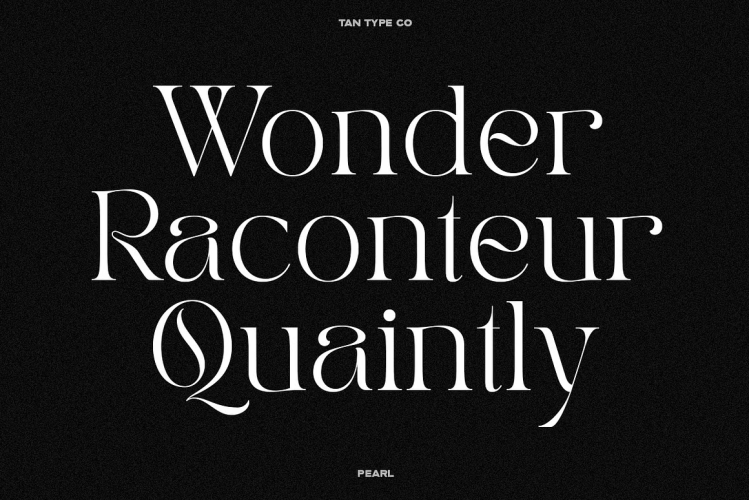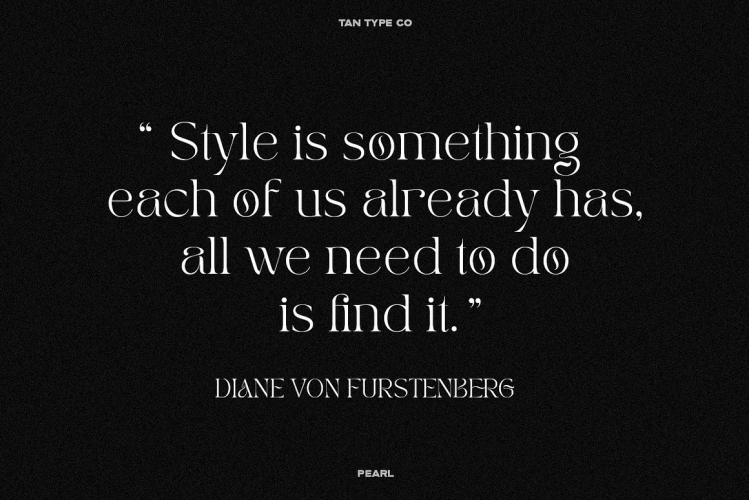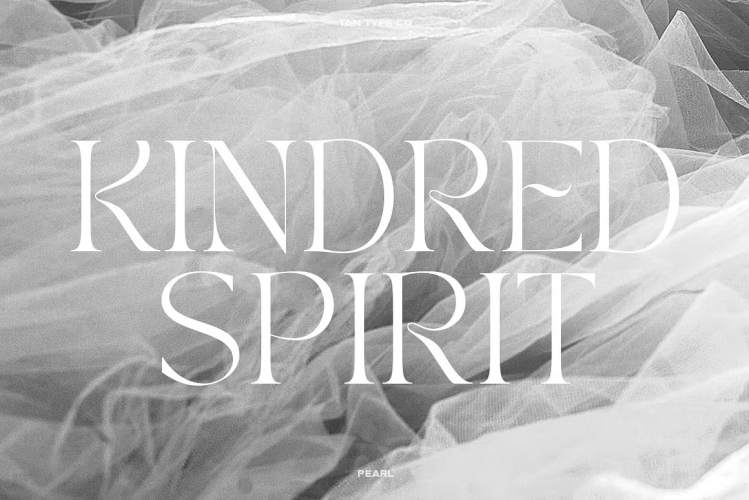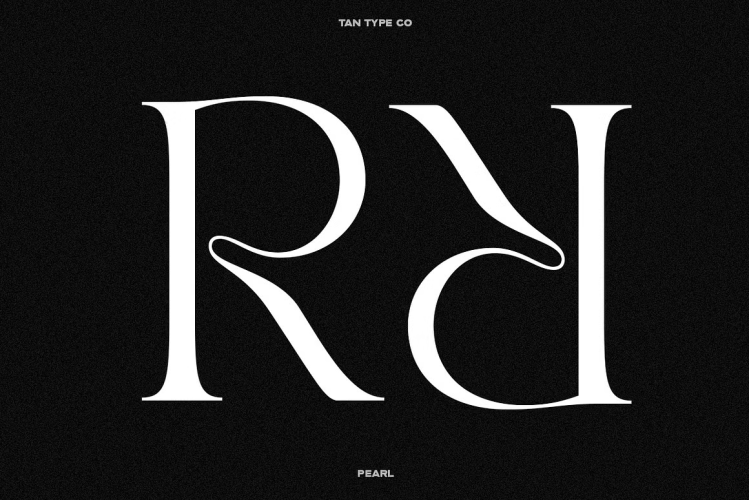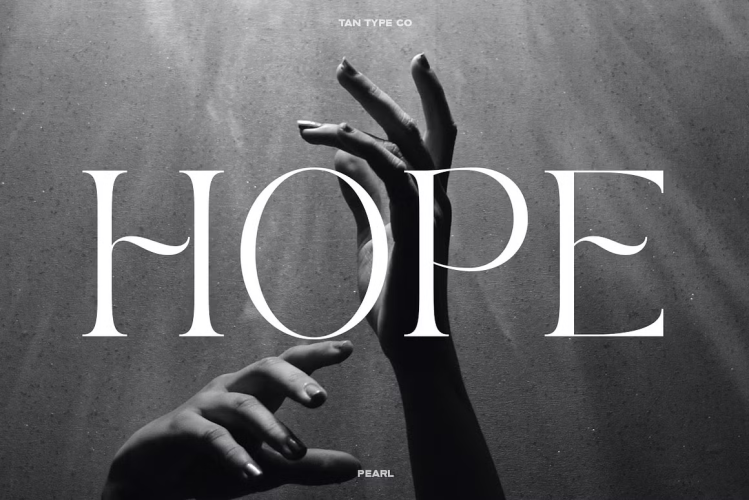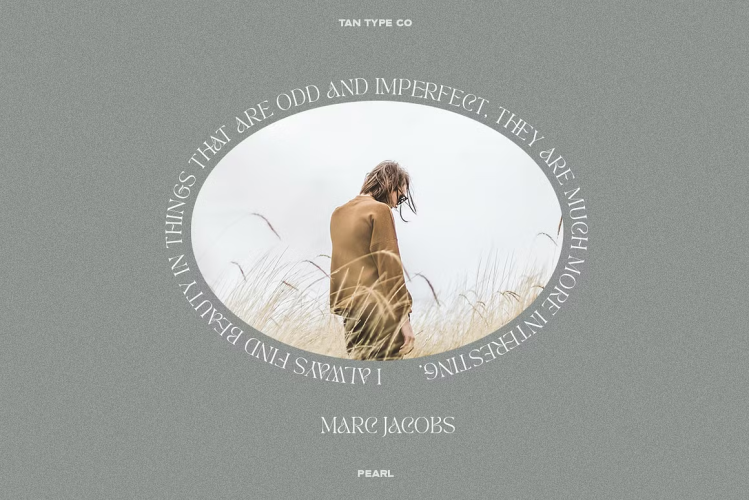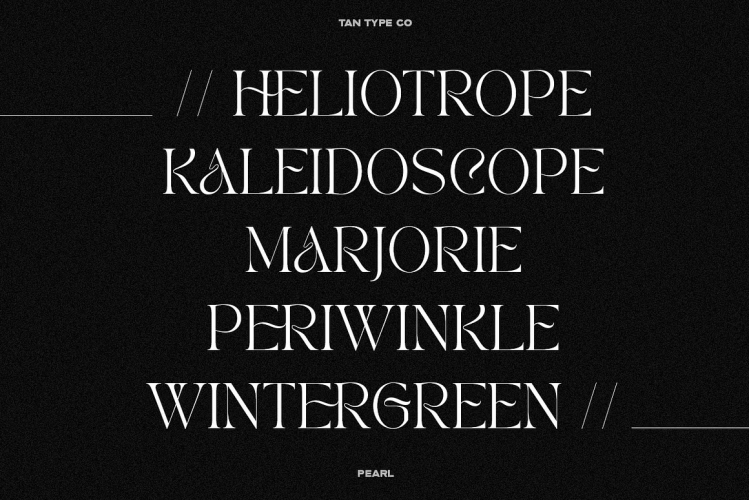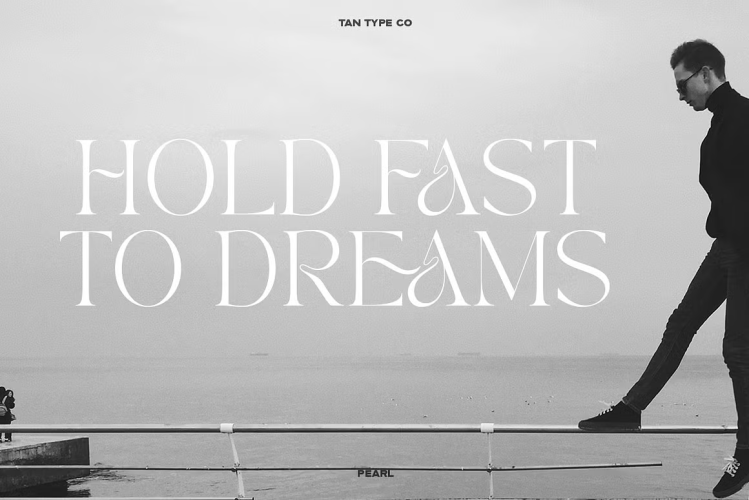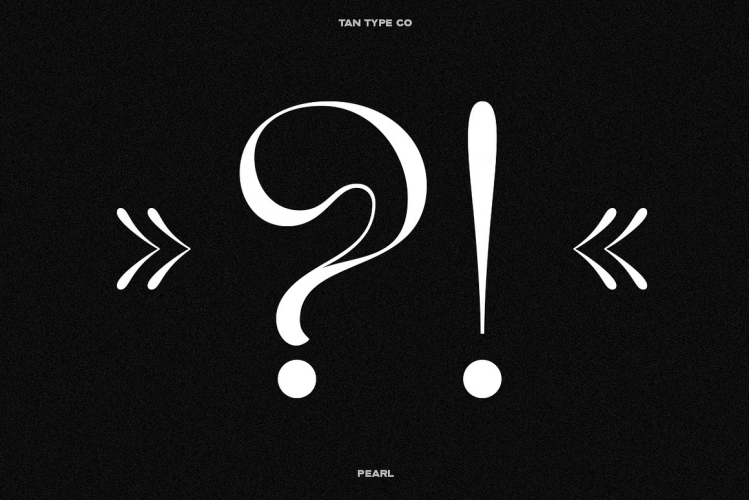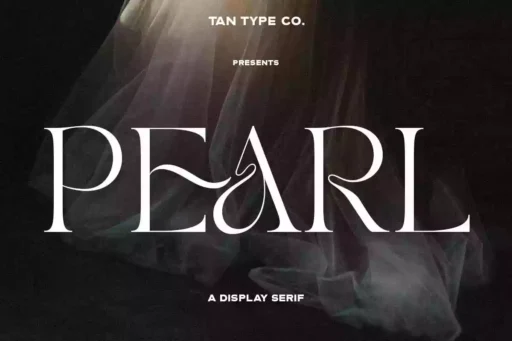
TAN PEARL Font
Introducing TAN PEARL is a serif font that doesn’t require much effort to be playful and elegant. Bearing the affinity with beautiful curves and graceful gestures, this TAN PEARL pampers the eyes with everlasting elegance! Whether for wedding invitations, a logo, or editorial styling, TAN PEARL is as versatile as possible and will find a place in any project, making your work naturally smooth and original. TAN PEARL becomes your pal, the embodiment of art through expression and exploration.
Imagine it placed in an illustration of a retro or classic cookbook, enhancing the sophistication of the recipes in the book. Picture it printed on a boutique’s branding, making the brand more cool and charming. TAN PEARL offers various services to enhance any event’s style and lure, including invitation design, signage production, packaging, and social media graphics.
However, TAN PEARL is not any ordinary font; instead, it is a means of inert creativity to take wings. It inspires creativity, urging the artist to venture into the endless creation world. Whether you’re a professional who knows how to break boundaries or a beginner artist who searches for beauty in the mundane, TAN PEARL will be your companion on your creative journey, filled with elegance, sweetness, and inexhaustible inspiration.
TAN PEARL Font gives long-form text a classic, trustworthy rhythm — ideal for magazine spreads, annual reports and book interiors.
Pair TAN PEARL Font with generous letter-spacing for wordmarks in fashion, hospitality, wine and jewellery branding.
Use TAN PEARL Font for slide titles in Keynote, PowerPoint or Google Slides to add authority without looking dated.